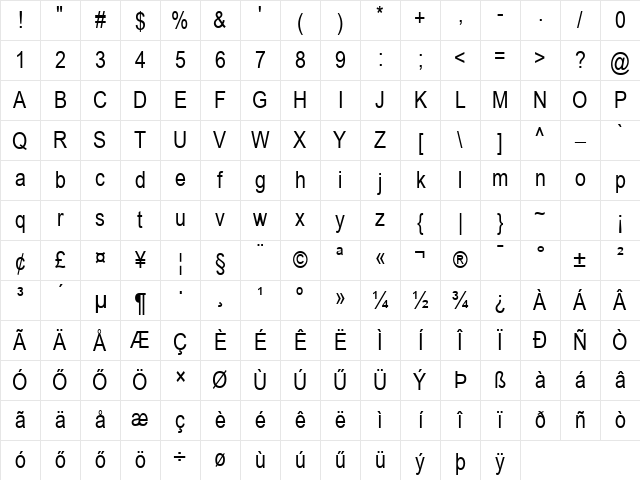
Huni_Arial Narrow Regular
Design Context for Huni_Arial Narrow
Huni_Arial Narrow is a composed and adaptable typeface that performs quietly and consistently across a wide range of design contexts. Its narrow stance lets it pack a punch even in space-constrained designs.
Pro Tip: Use Huni_Arial Narrow in both headline and body roles to test its range before committing to a single application.